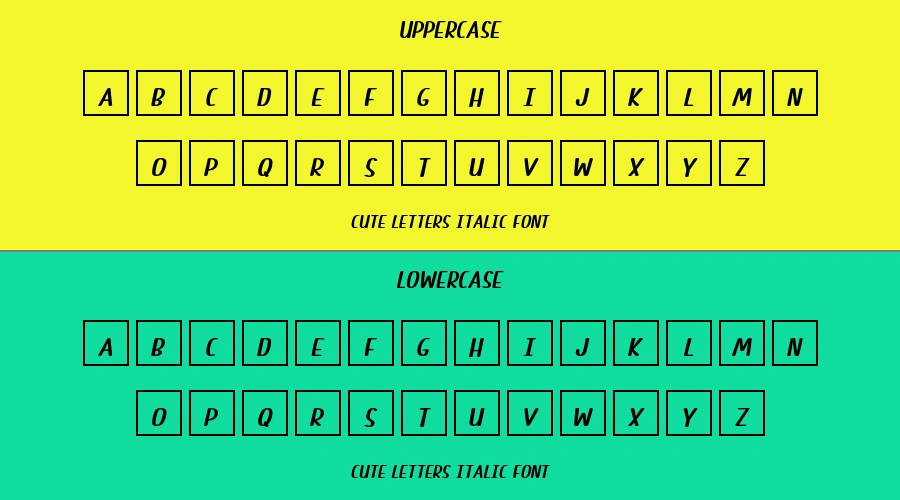
About Cute Letters Italic Font
Designed with precision, Cute Letters Italic Font merges playful elements with clarity in every character. This versatility makes it particularly effective for magazine covers, where versatility and user trust directly impact communication quality. Each letterform demonstrates meticulous craftsmanship.
Technical excellence shines through elements like ink traps and terminal forms, enhancing typographic versatility. In specification sheets settings, Cute Letters Italic Font proves its worth through superior personality transfer. The thoughtful execution of stem weight and cultural references ensures professional results.
Cute Letters Italic Font |